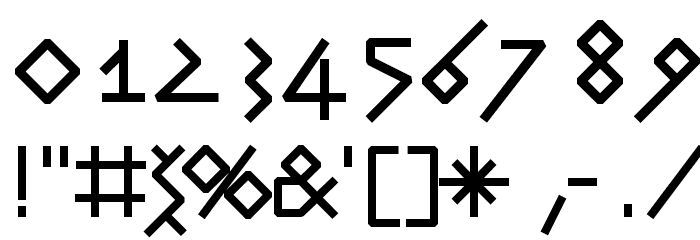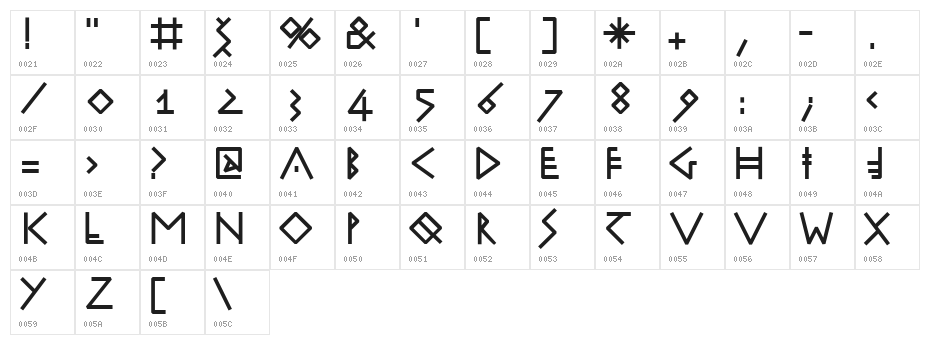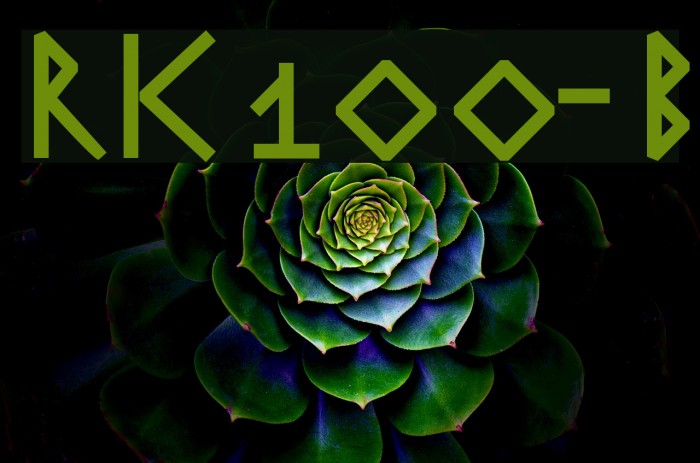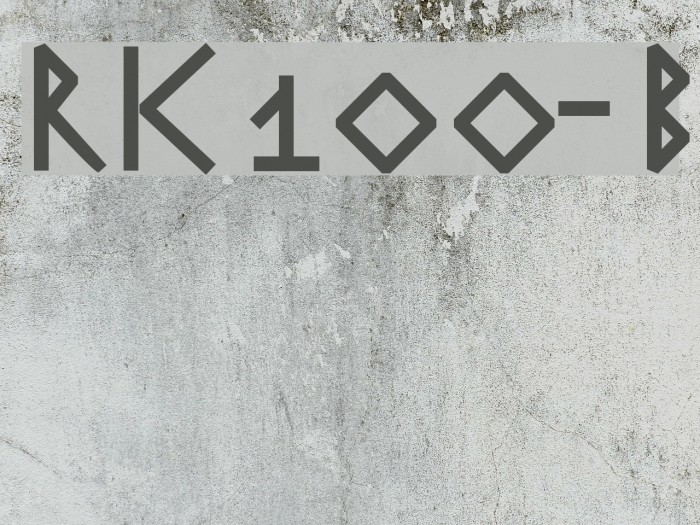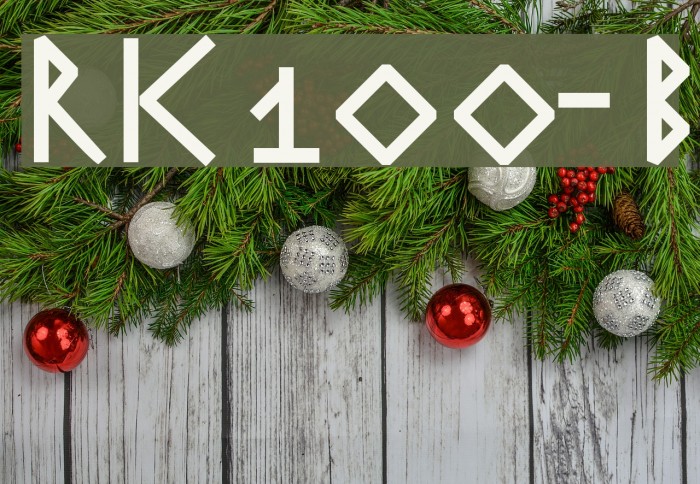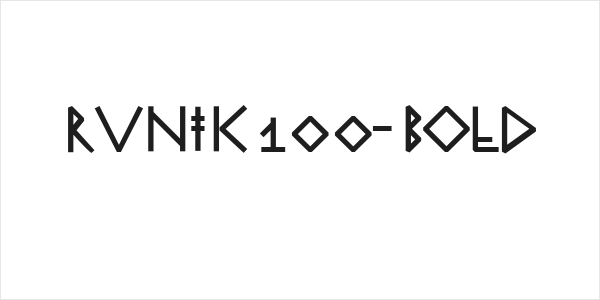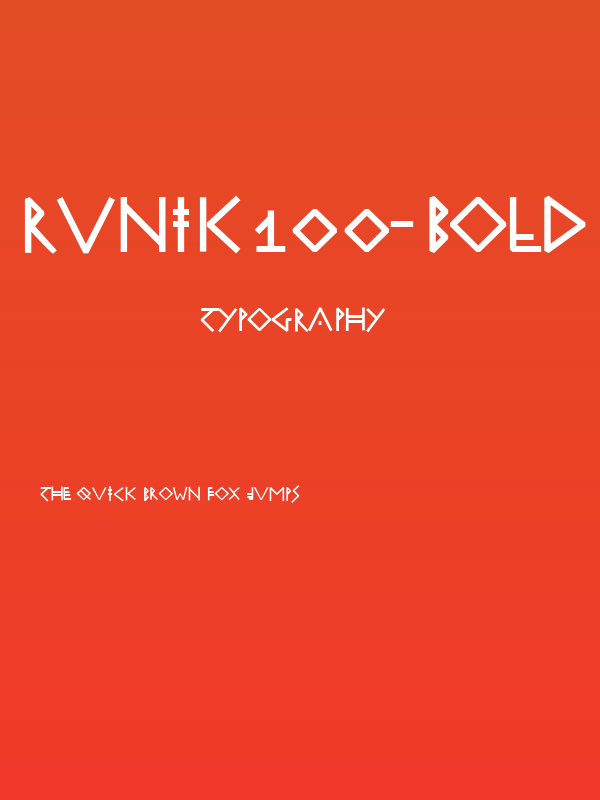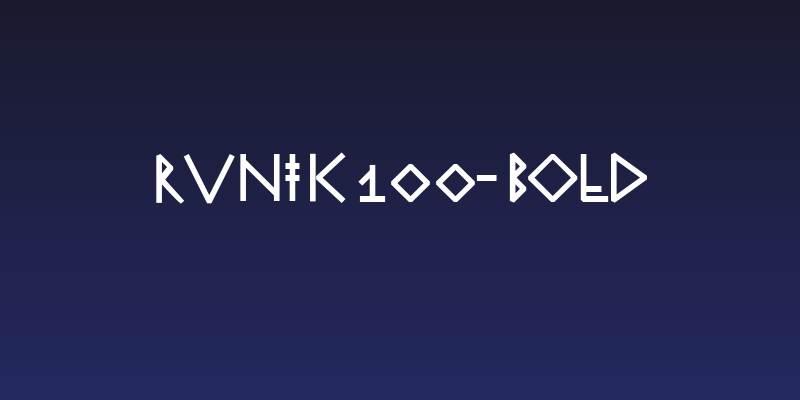
RuniK100-Bold Font
RuniK100-Bold Description
This font features a unique and bold design inspired by ancient runic alphabets. The characters are angular and geometric, with sharp edges and distinct lines that create a striking visual impact. The uppercase and lowercase letters maintain a consistent style, emphasizing symmetry and uniformity. Numbers and special characters are crafted with the same attention to detail, ensuring a cohesive look across all glyphs. The font's boldness makes it ideal for projects that require a strong and memorable typeface.
| Use Case | Logos, Posters, Headlines |
| Proposed Projects | Ideal for fantasy-themed designs, game titles, logos, and posters that require a bold and ancient aesthetic. |